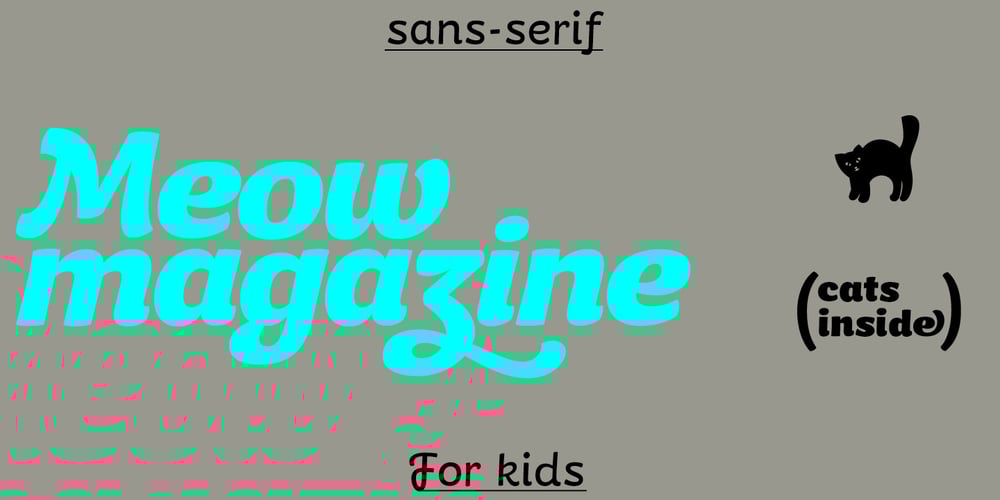
Kiddy Kitty
Kiddy Kitty font
Kiddy Kitty Font Family was designed by Vasily Biryukov, Alexandra Korolkova and published by Alexandra Korolkova. Kiddy Kitty contains 11 styles and family package options. Kiddy Kitty is a soft and friendly sans-serif type family which consists of 6 upright italic and 5 italic weights. It supports Western and CE Latin and Cyrillic, and it also has some ligatures and swashes and 16 carefully drawn cat dingbats in each font. Kiddy Kitty is good for greeting cards, children’s books and package design. It is designed by Vasily Biryukov with some support of Alexandra Korolkova.